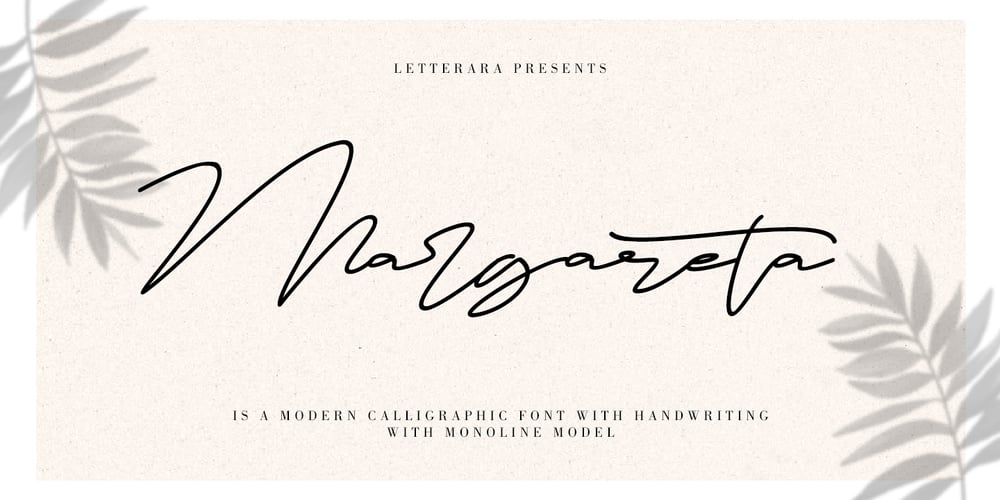
Margareta
Margareta font
Margareta Font Family was designed by Thomas Aradea and published by Letterara. Margareta contains 2 styles and family package options. Margareta is a modern calligraphic font with handwriting with mono-line model. It’s perfect for branding, logos, wedding invitations, diaries, cups, mugs, greeting cards and more. What’s included: 1. Style in this font include: Regular & Italic 2. 103 Ligatures 3. Works both on Mac & PC 4. Simple installations 5. Accessible in the Adobe Illustrator, Adobe Photoshop, Adobe InDesign, CorelDraw, even work on Microsoft Word. 6. Support multilingual; ä ö ü Ä Ö Ü ß ¿ ¡ 7. To access the alternate glyphs, you need a program that supports OpenType features such as Adobe Illustrator CS, Adobe Photoshop CC, Adobe Indesign and CorelDraw. More information about how to access alternate glyphs, check out this link (http://goo.gl/ZT7PqK)